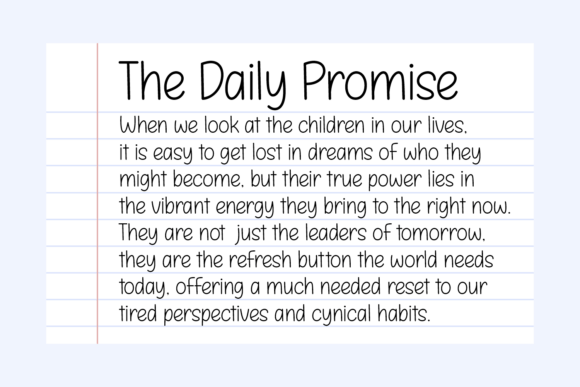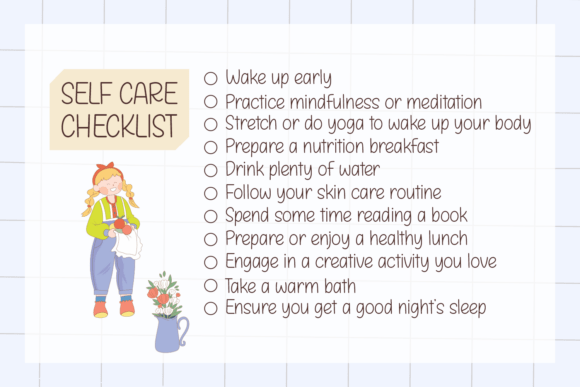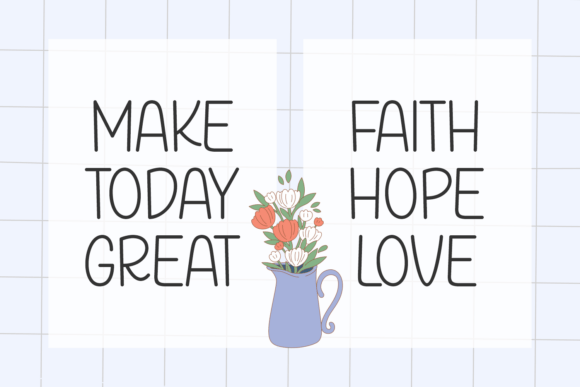
Introduction to Children Promise Font
Children Promise is a cute handwritten font that looks clean and easy to read.
Its simple style gives your text a casual, friendly feel, making it ideal for branding, notes, invitations, social media posts, and anything that requires a touch of whimsy Get ready to add some personality to your work with this font.